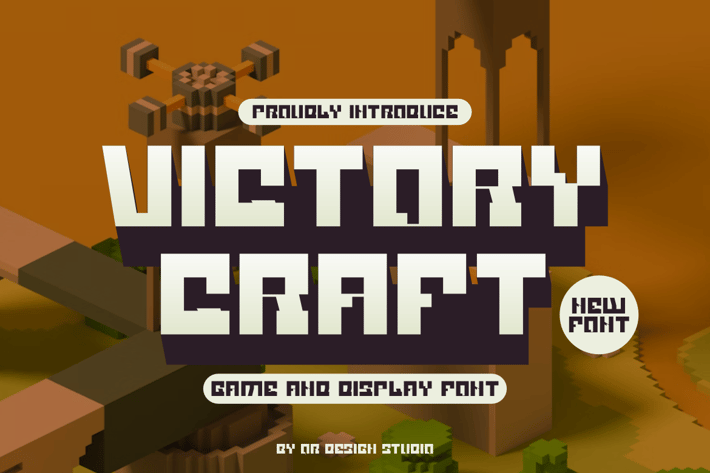
Victory Craft - Pixel & Game Font
Victory Craft - Pixel & Game Font is a bold and authentic display font.
The font is suitable for any branding project like gaming, poster, logo, sport, and many more.